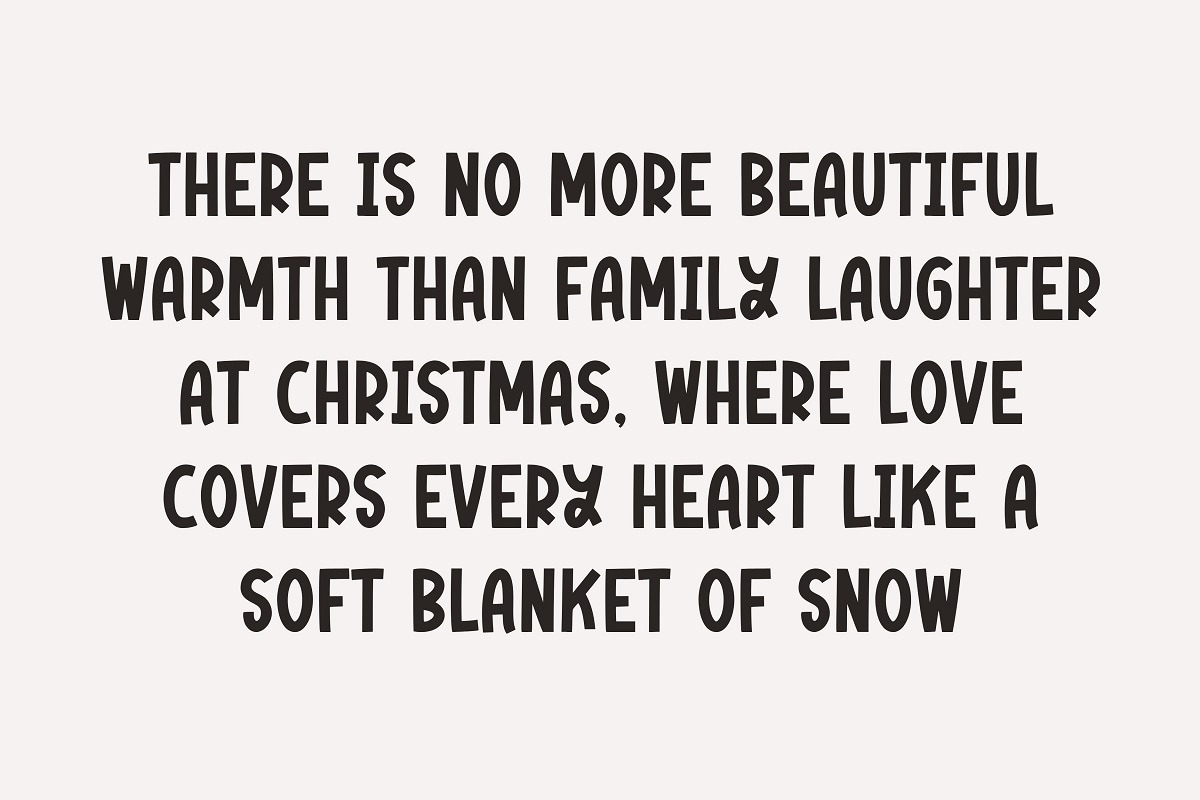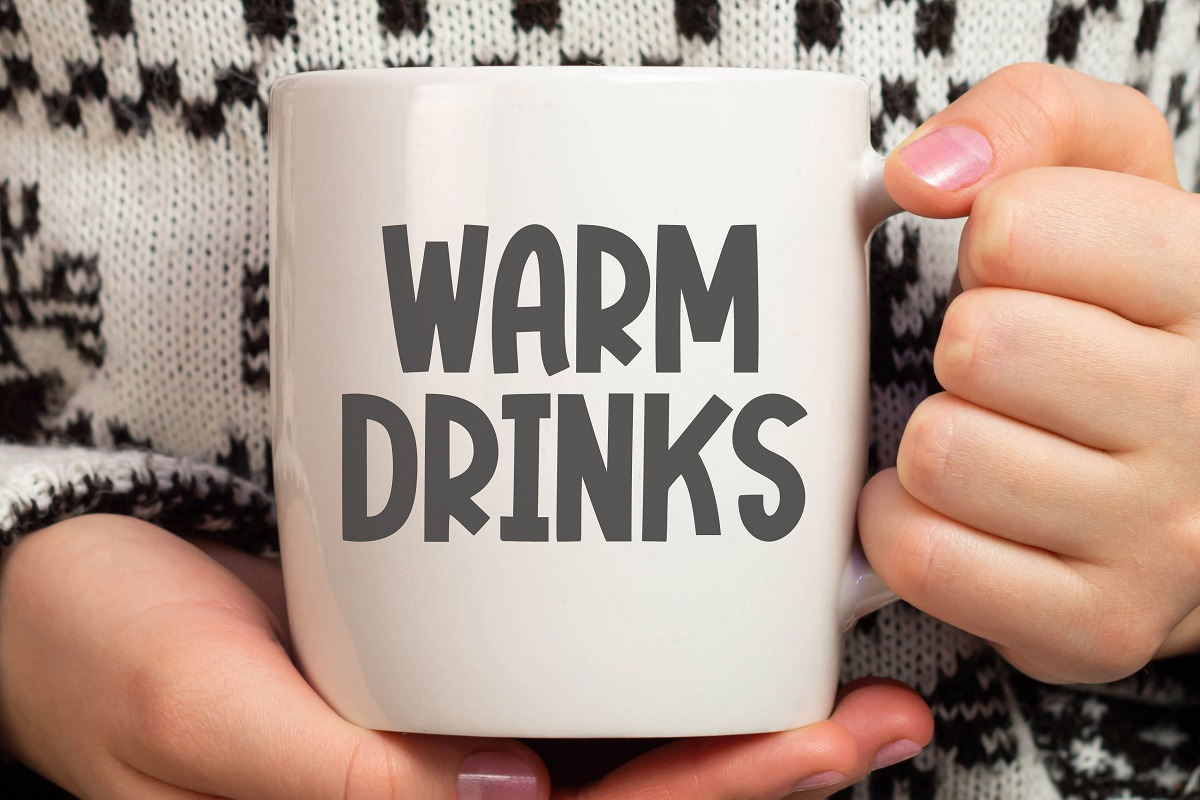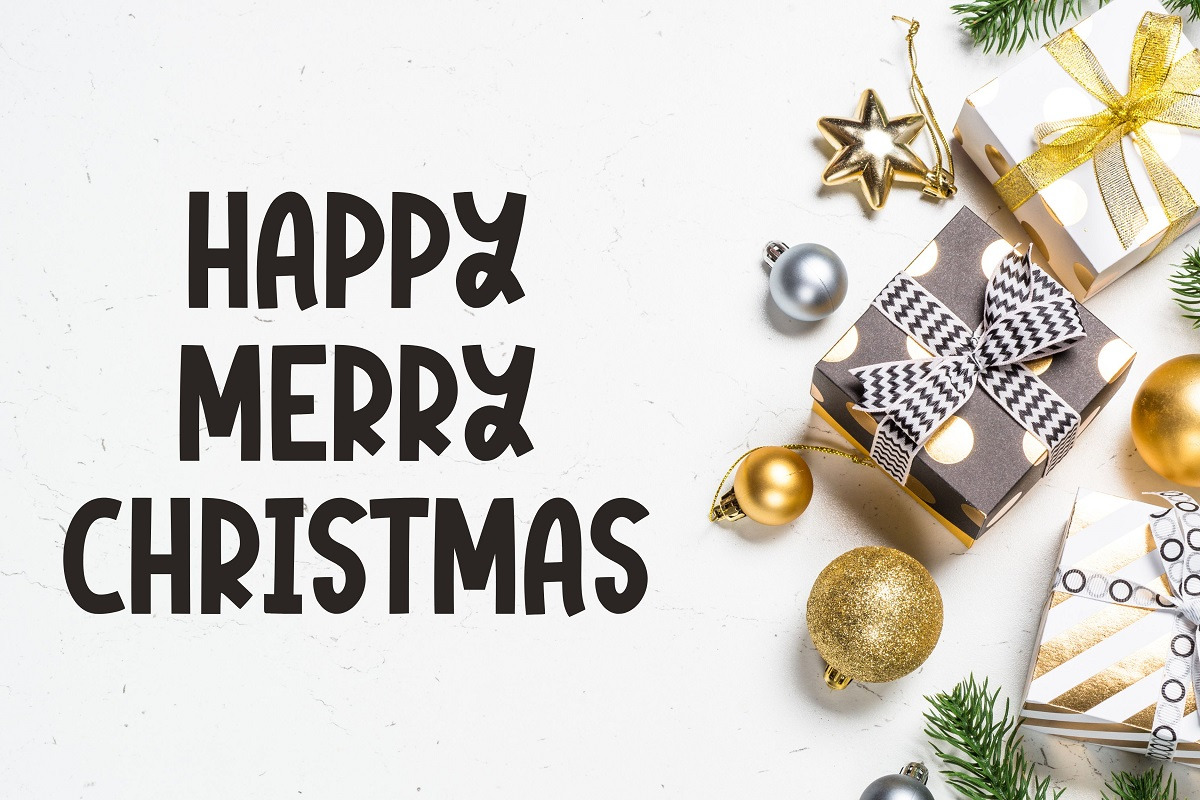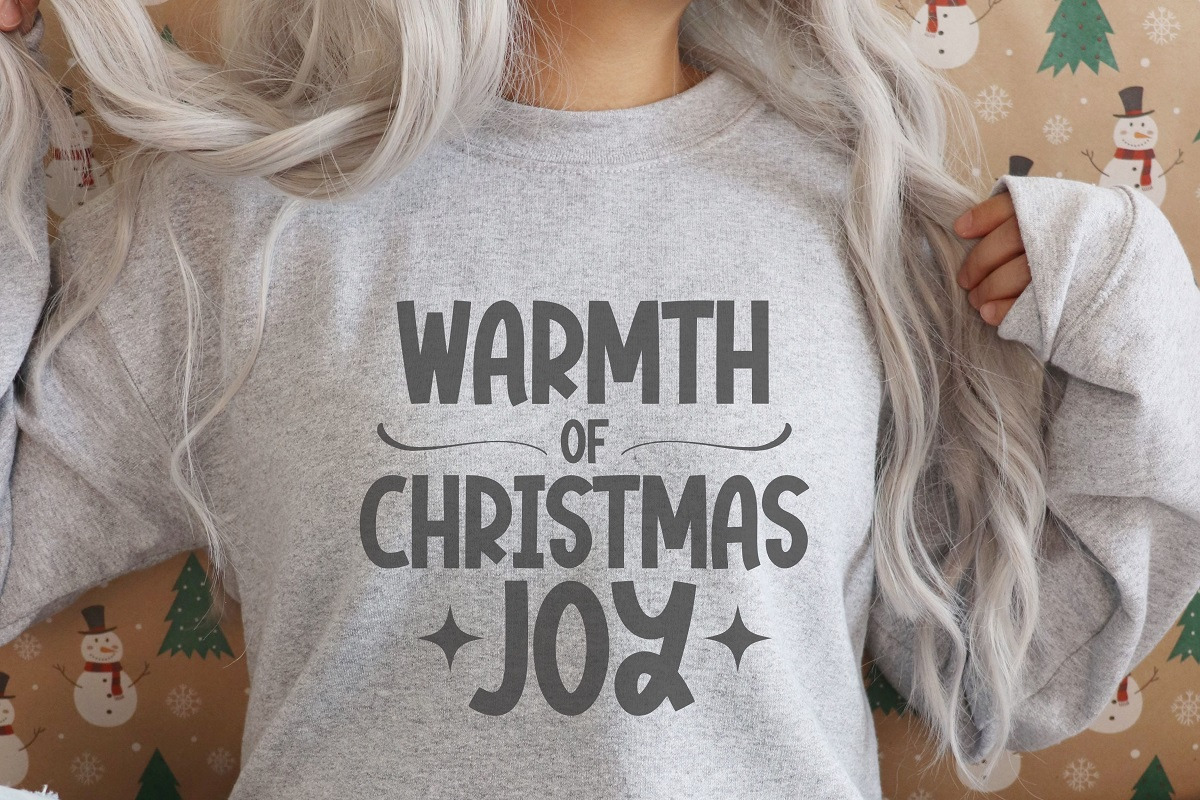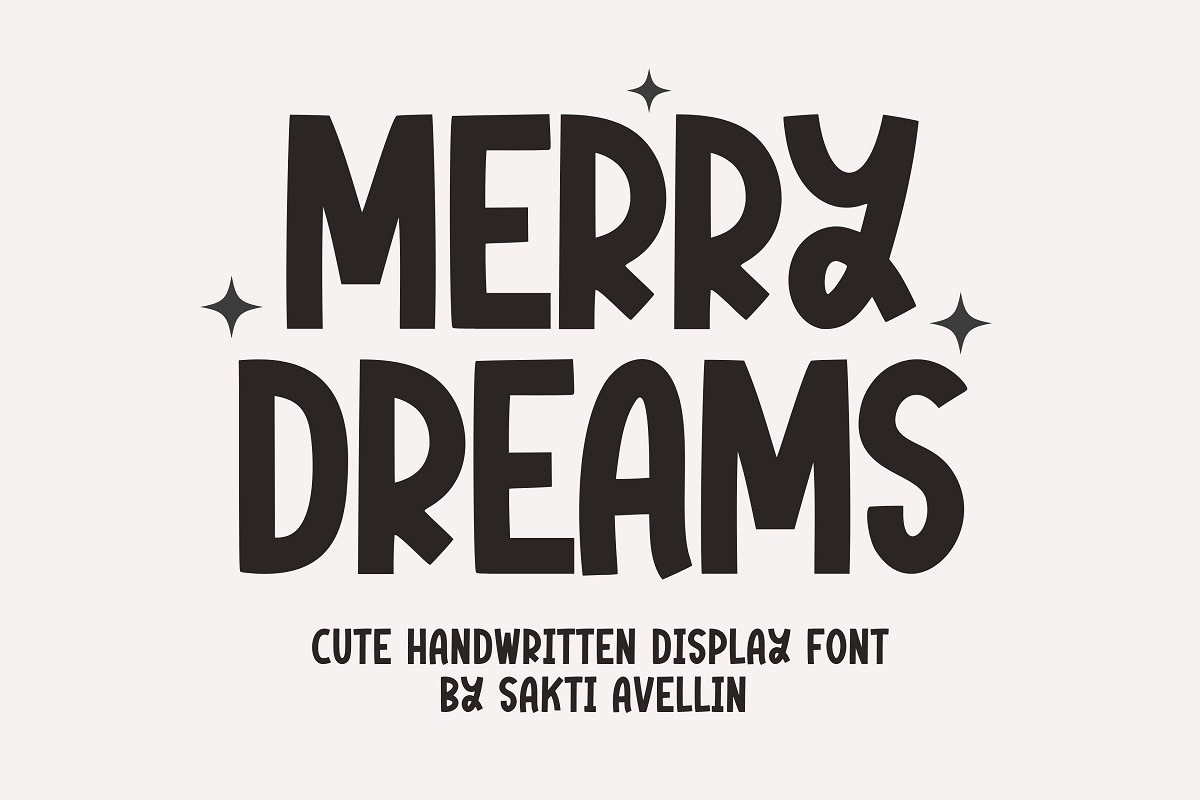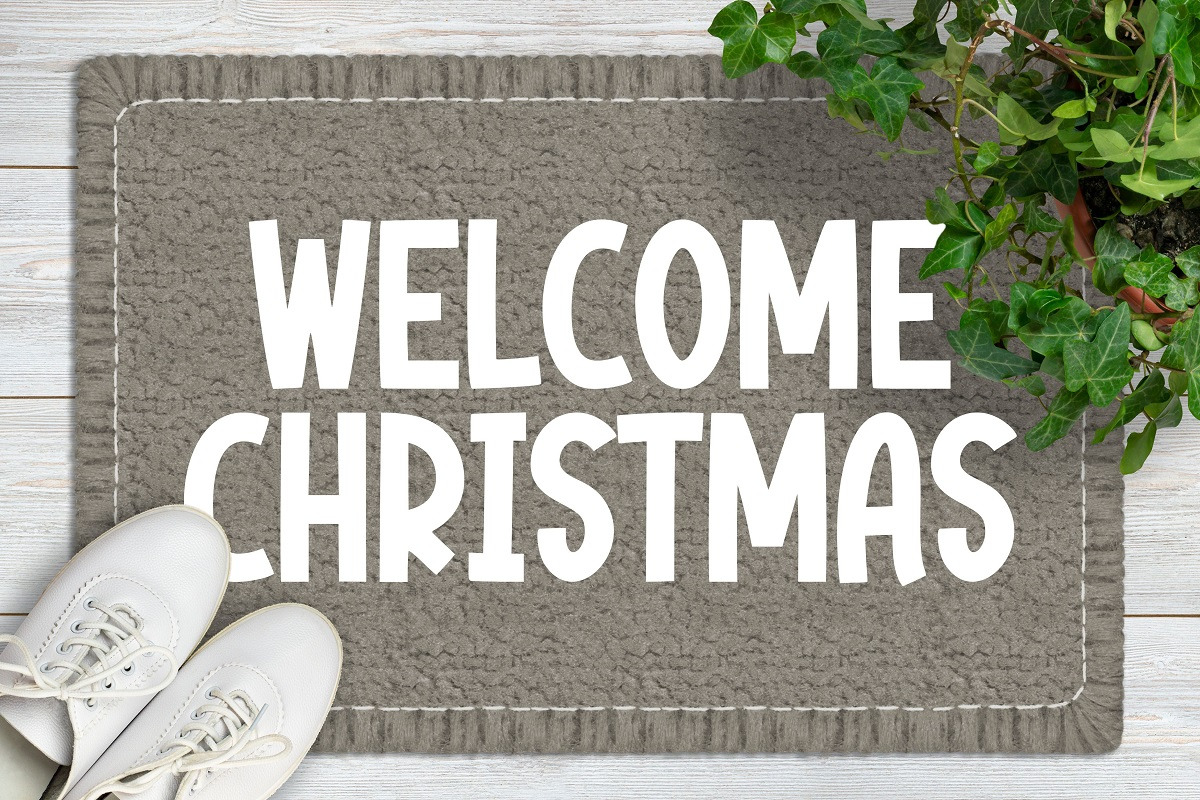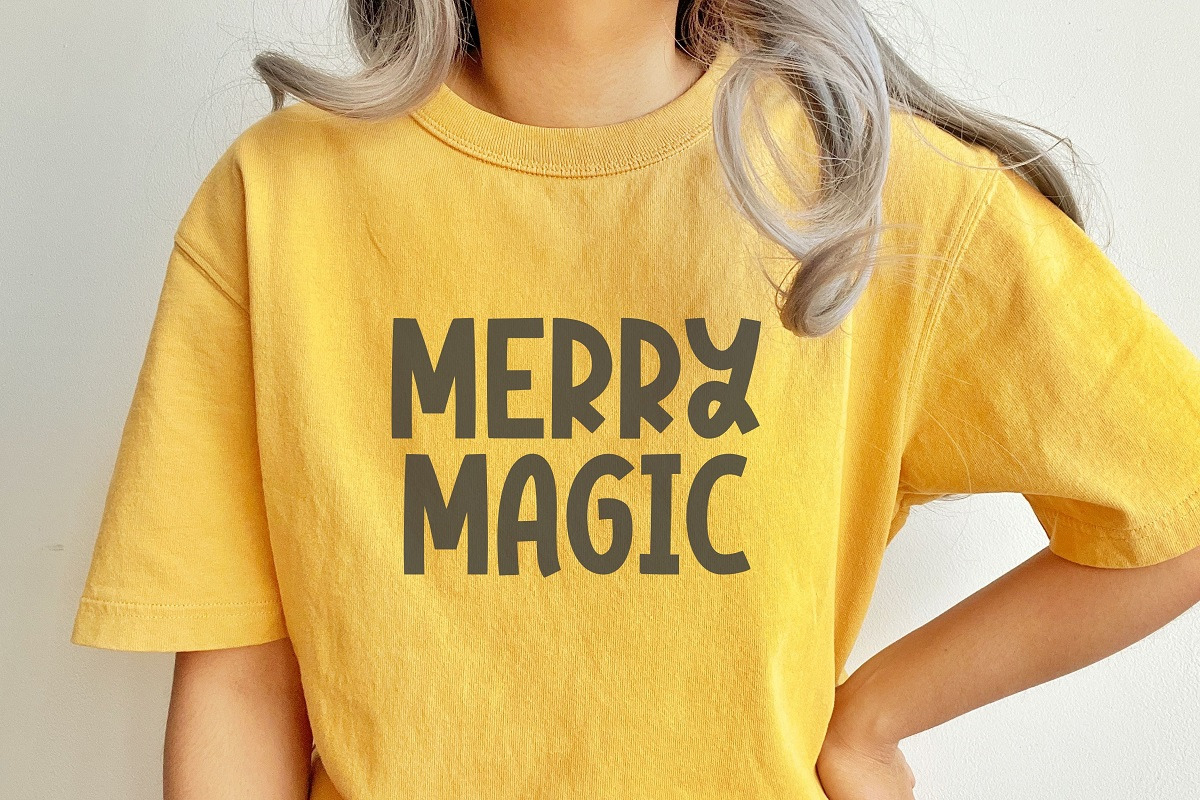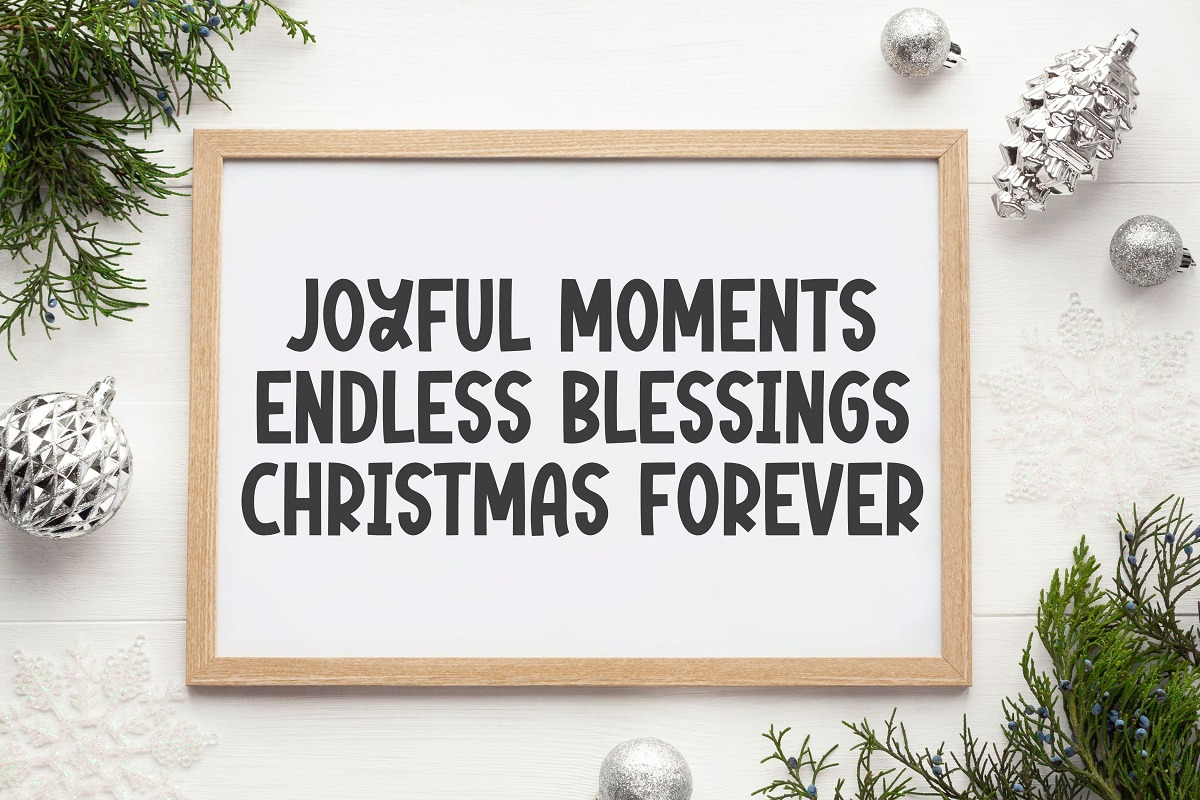
Merry Dreams - Cute Handwritten Font
Merry Dreams is a fantastically fun and incredibly cute handwritten display font that brings immediate joy to any project. This kids font features thick, bouncy letters, perfect for children's books, cricut projects, playful logo design, party invitations, and nursery wall art. Its chunky typeface ensures high readability and a friendly, whimsical feel, making it an excellent display font for branding and product packaging aimed at a younger audience.